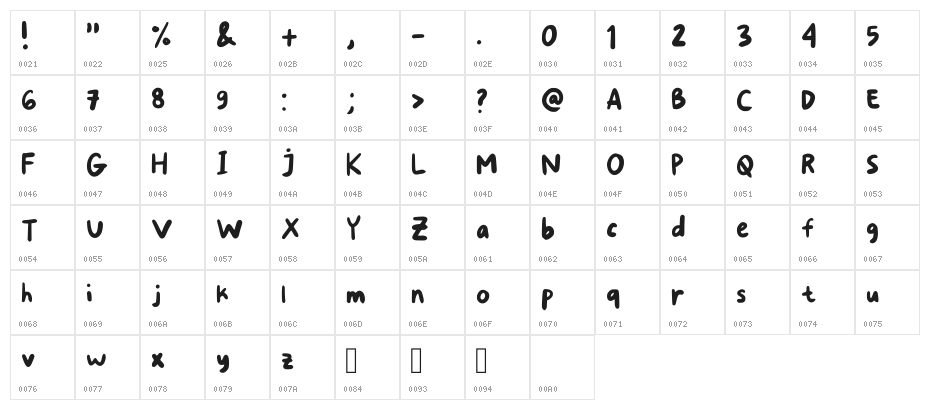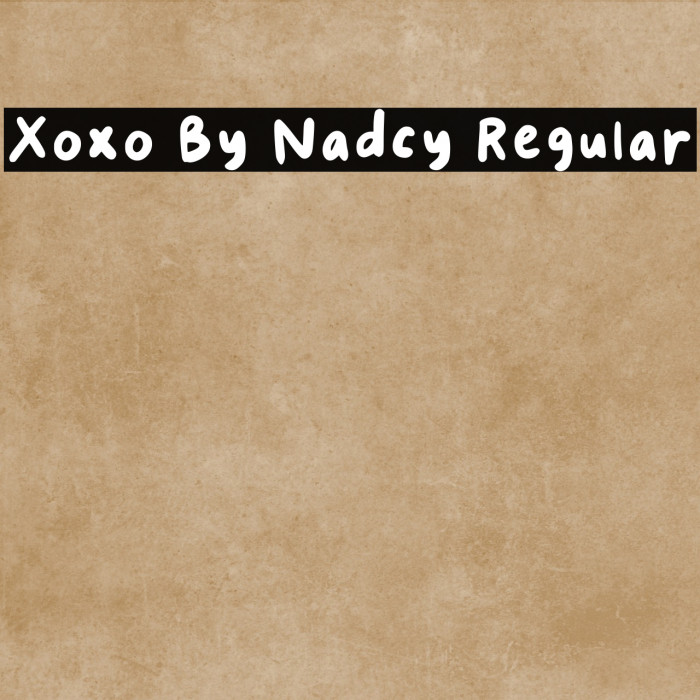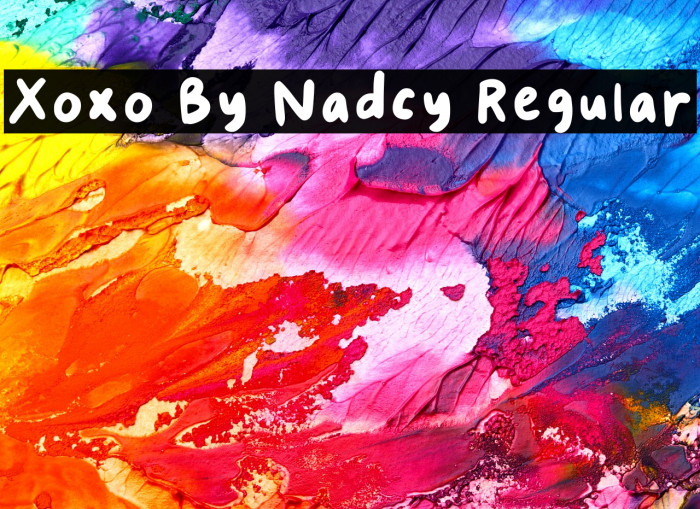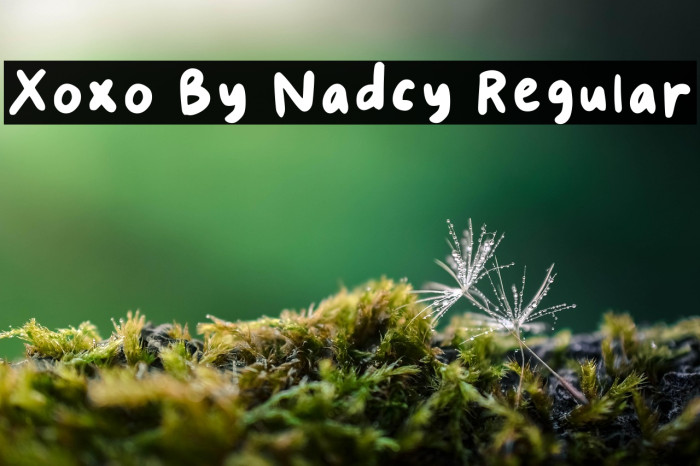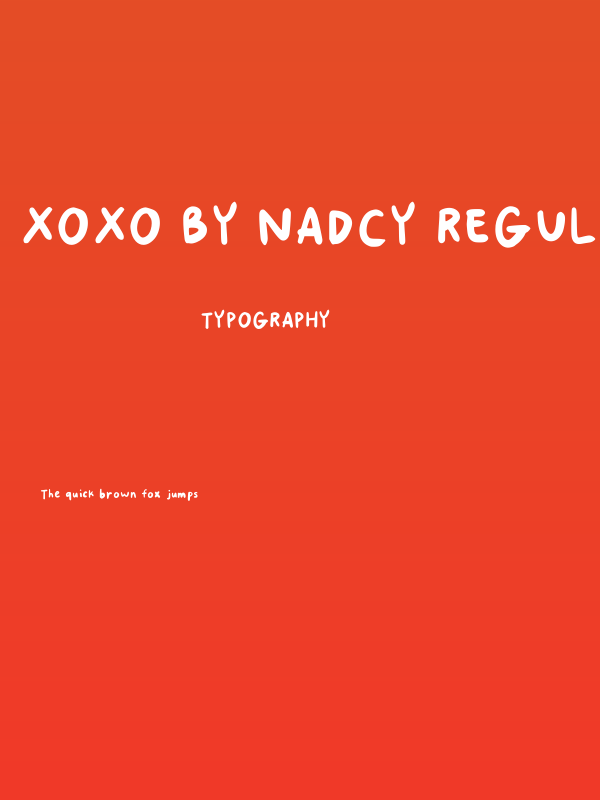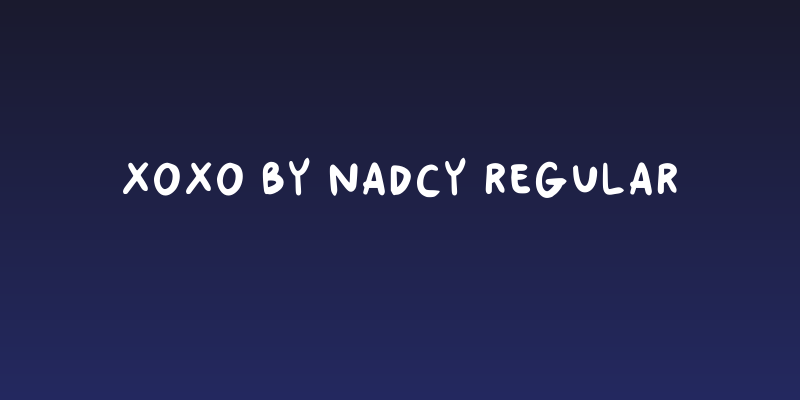
Xoxo By Nadcy Regular Font
Xoxo By Nadcy Regular Description
This playful and bold font features a handwritten style with a casual and friendly appearance. The characters are rounded and slightly irregular, giving it a whimsical and approachable feel. The uppercase and lowercase letters maintain a consistent style, with a noticeable thickness that ensures readability. The numbers and special characters are designed to match the overall aesthetic, making the font versatile for various uses. Its informal style is perfect for projects that require a personal touch, such as invitations, greeting cards, or children's book covers.
| Proposed Projects | Ideal for invitations, greeting cards, children's book covers, and playful branding. |